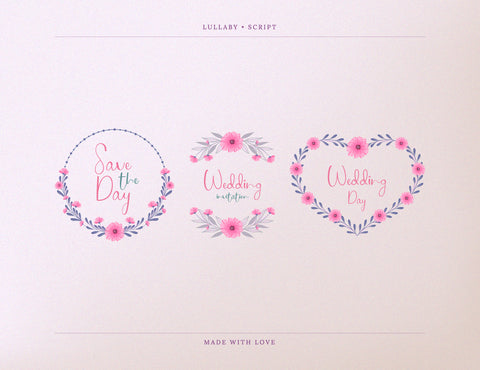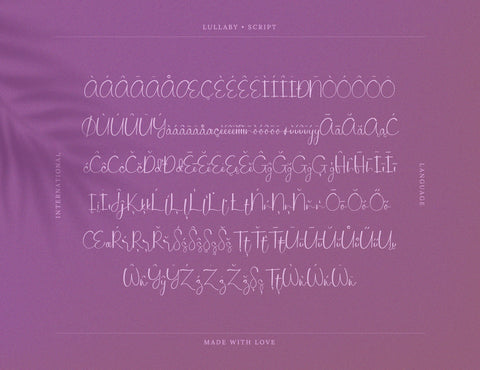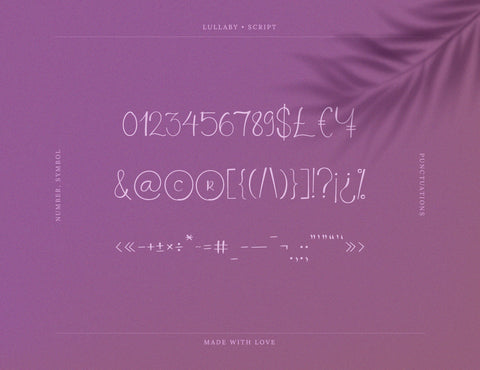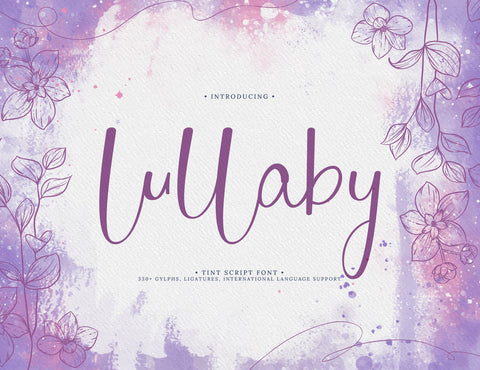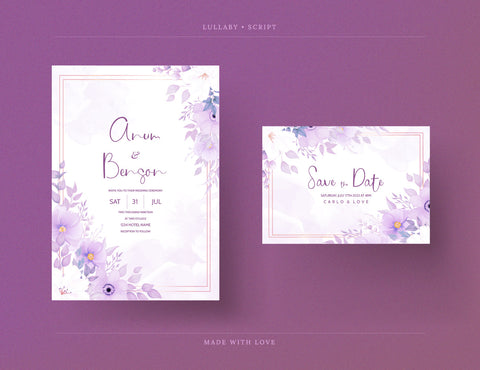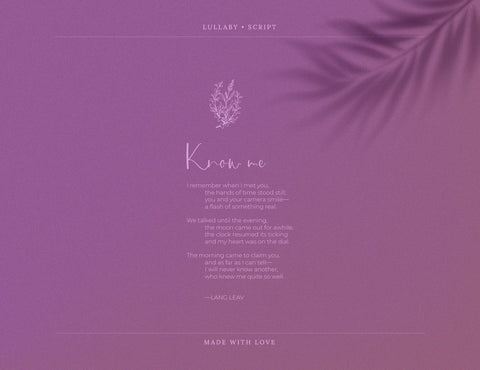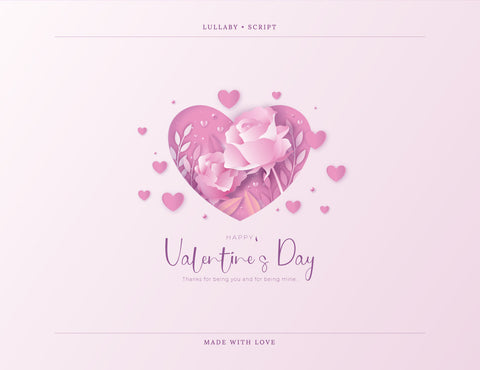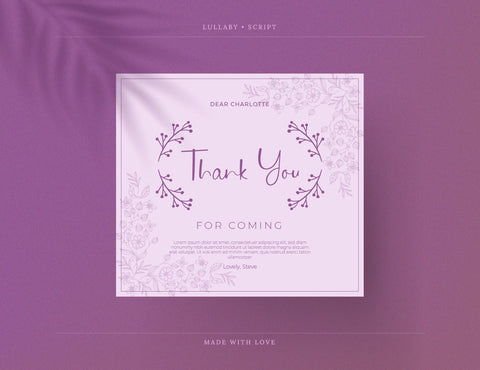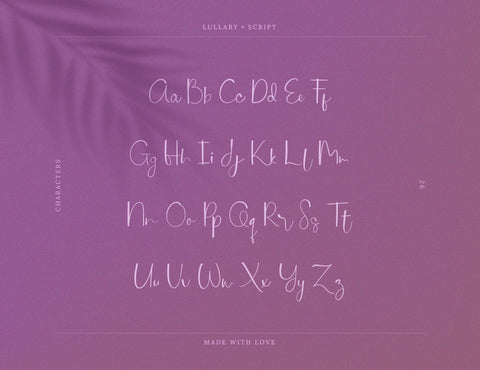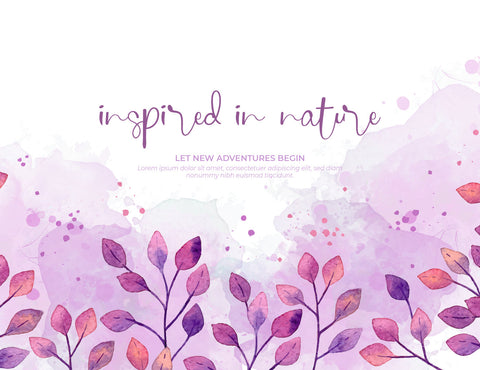
Lullaby Tint Script Font
Lullaby, Fresh Script Font designed in 2022. "Lullaby" is the one of new Script Font Collection. Blotchy and meshed, "Lullaby" described as handwriting typography with ink pen. Giving us desirable and artistic taste, "Lullaby" is perfectly use for wedding projects, invitations, lettering, posters, valentine projects, greeting cards, and another designed project. Your design will look classy and stylist.